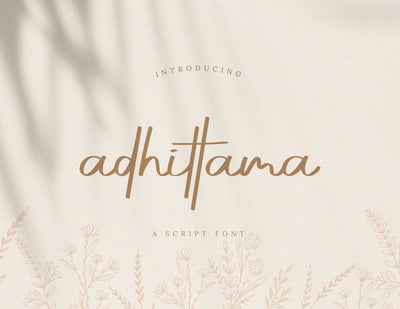
Adhittama Handwritten Script Font
Adhittama is the one of Script Font. It is adapted from two types Script font, these are Signature and Handwritten types. "Adhittama" is modified all creatures on those two types of Script font become a new innovated with new brush, creature, and characteristic.
So that, "Adhittama" is the one of unique and modern Handwritten Font. Because it is kind of Script and Handwritten Font, "Adhittama" is appropriate use for lettering, post card, wedding invitation, greeting card, decoration, brand, etc. "Adhittama" will make the design look more artistic, elegant, and eye-catching because it has classical vibes which commonly had on Signature Font.